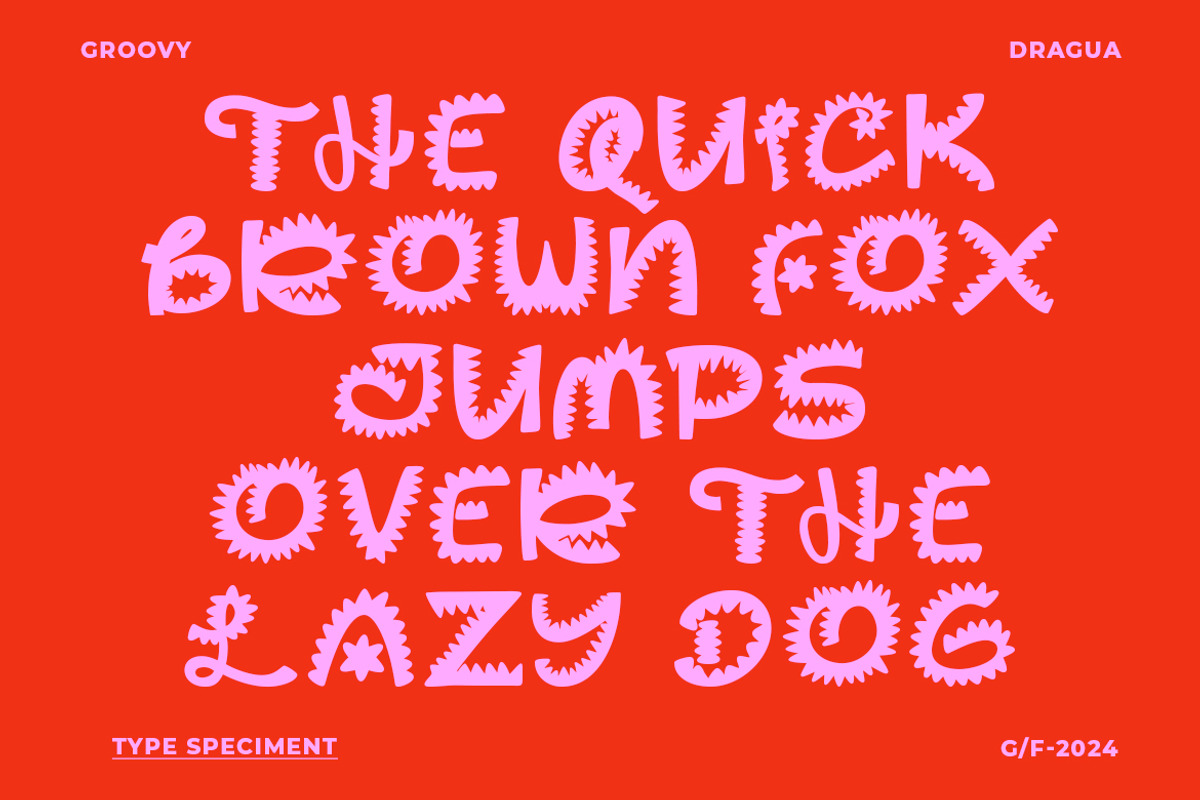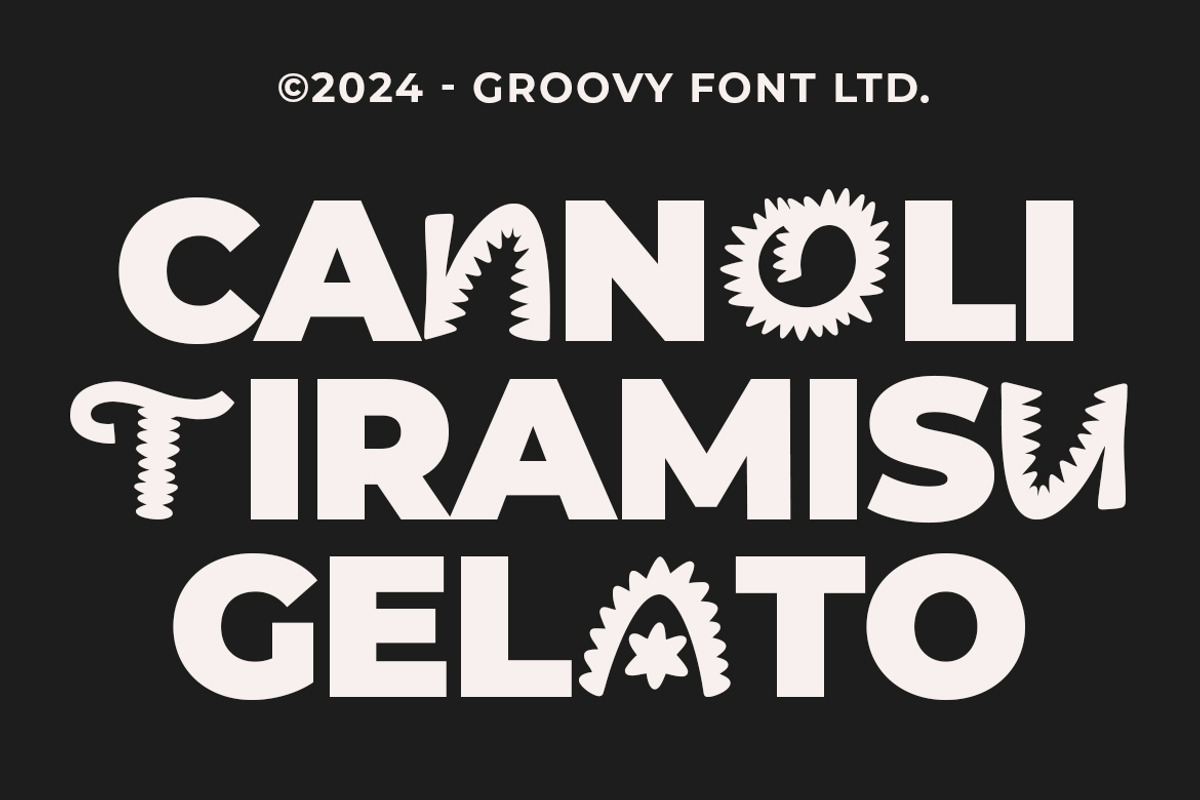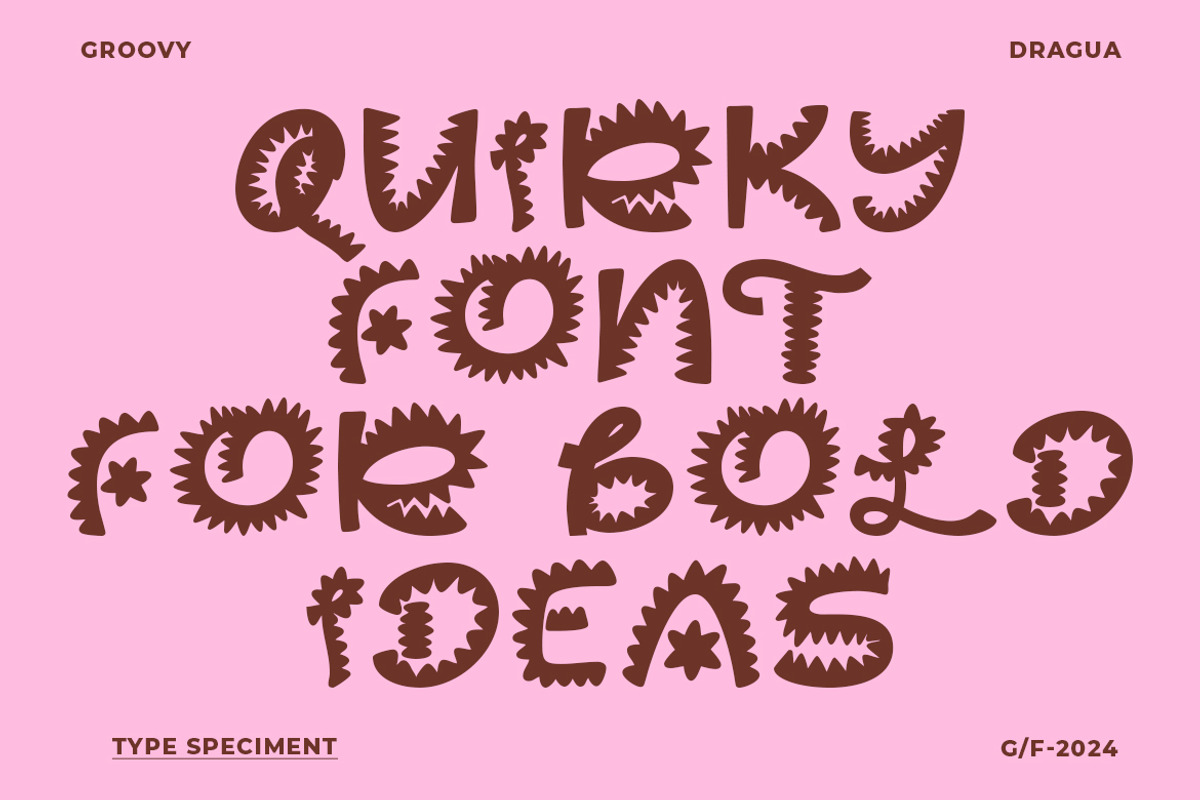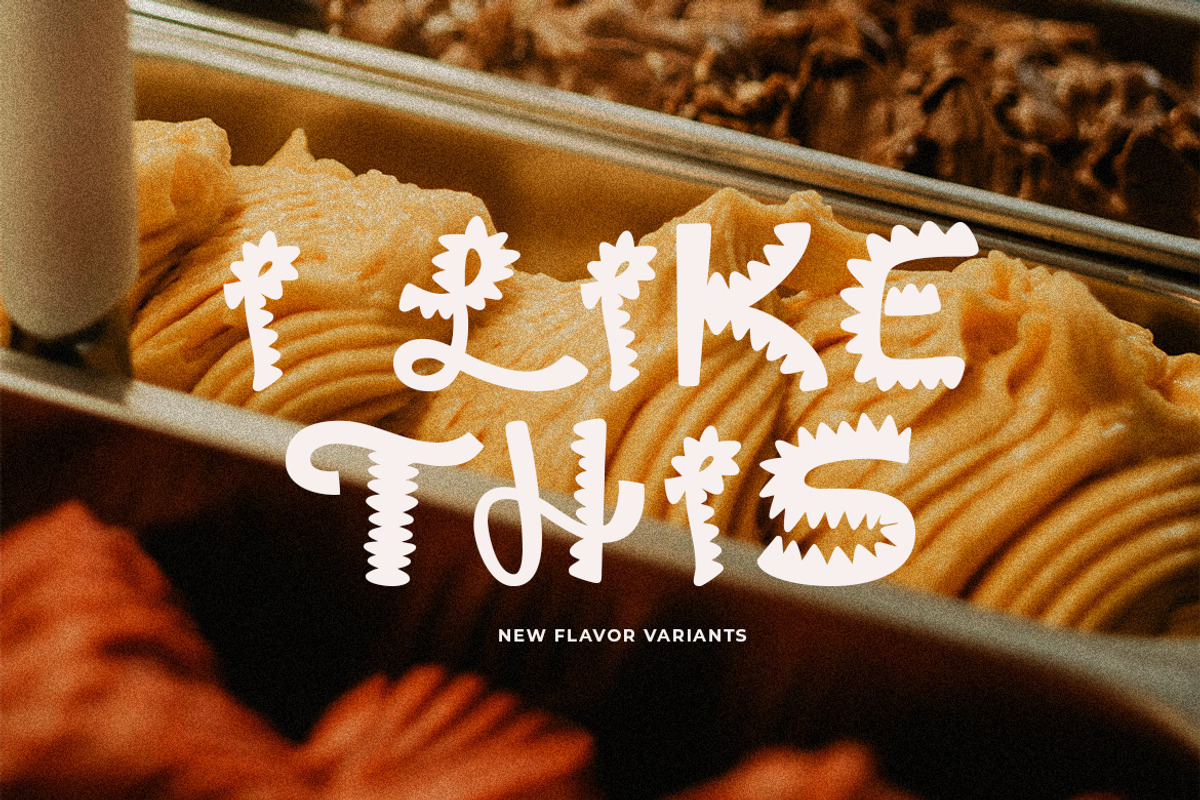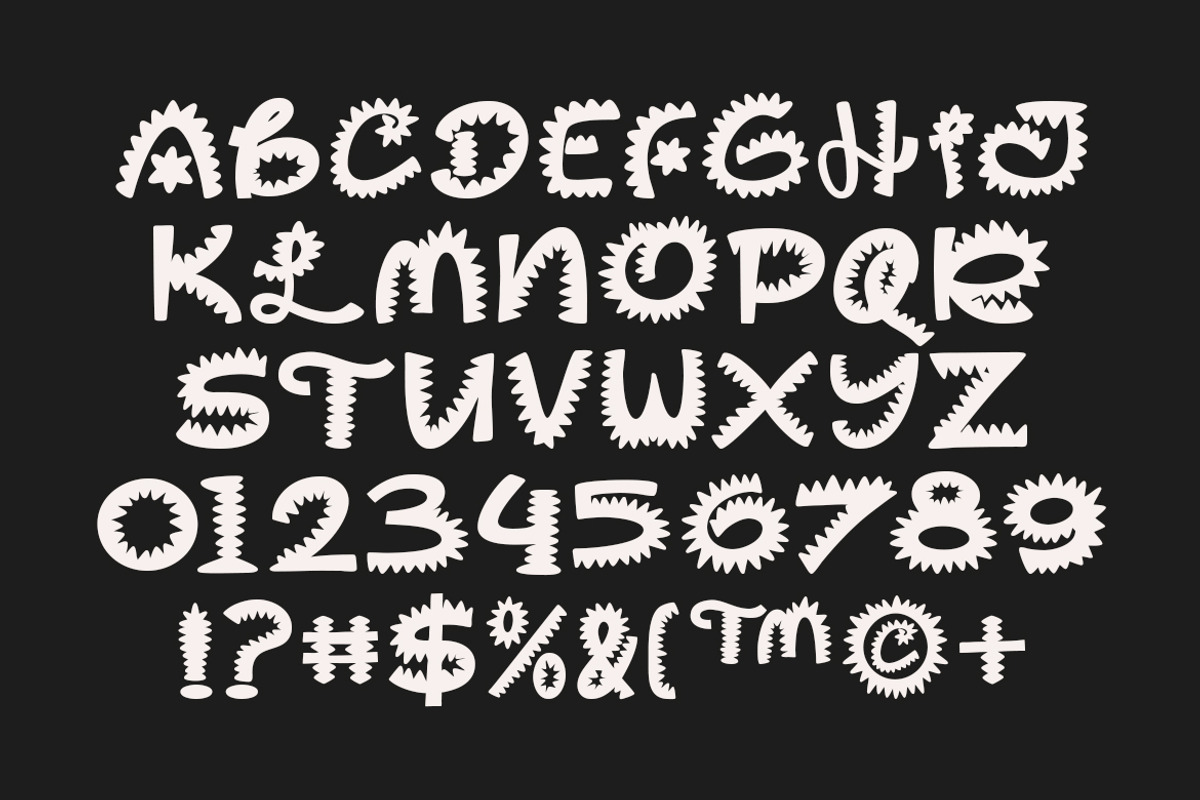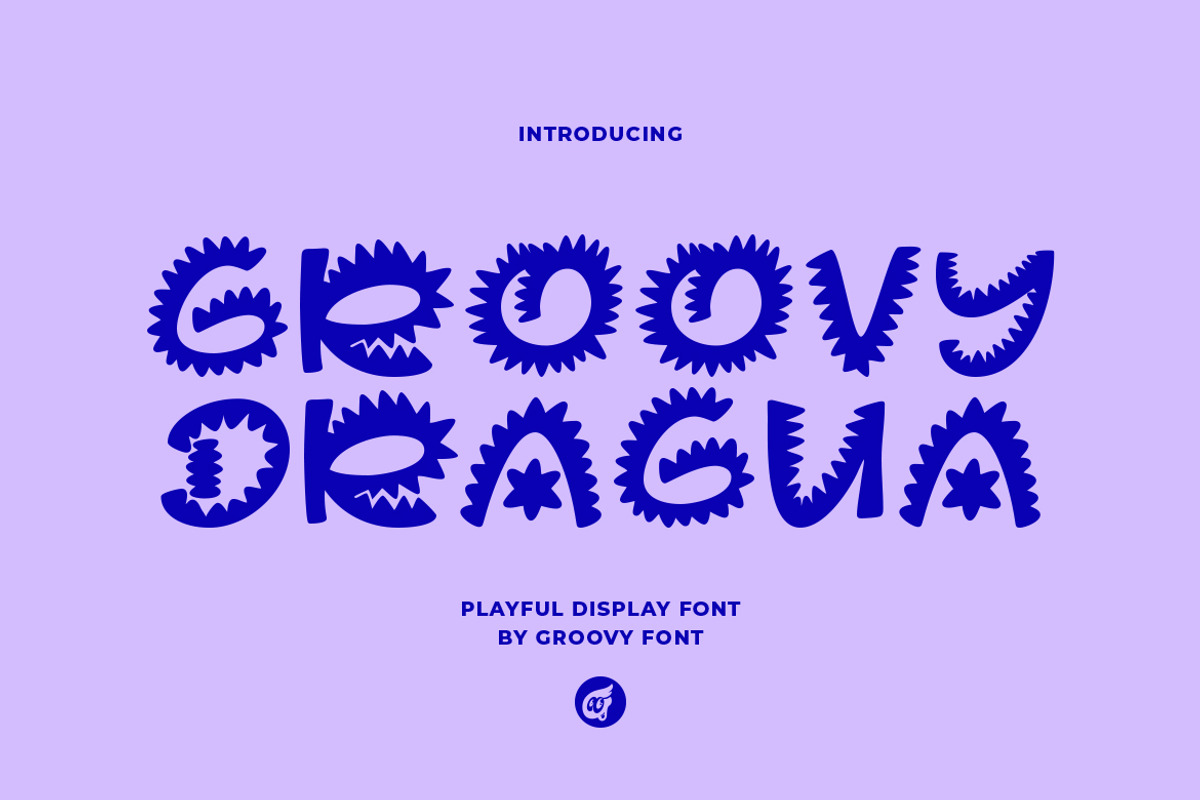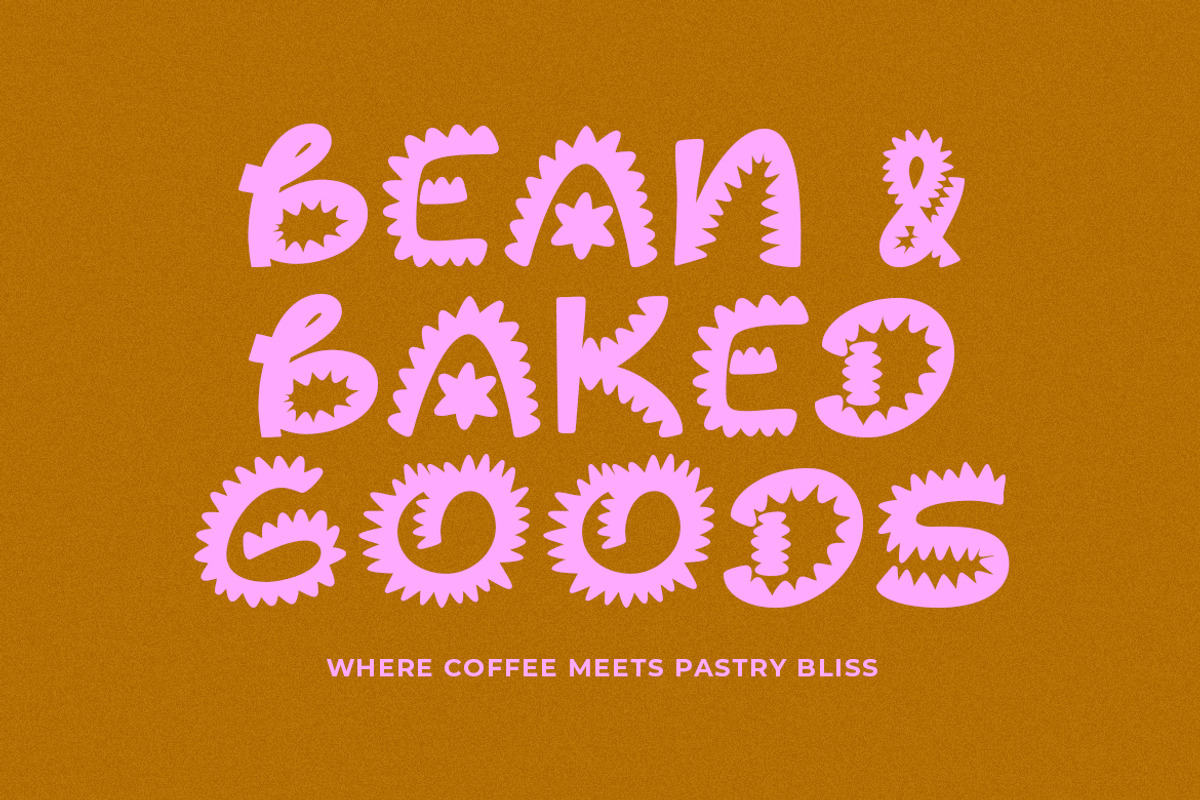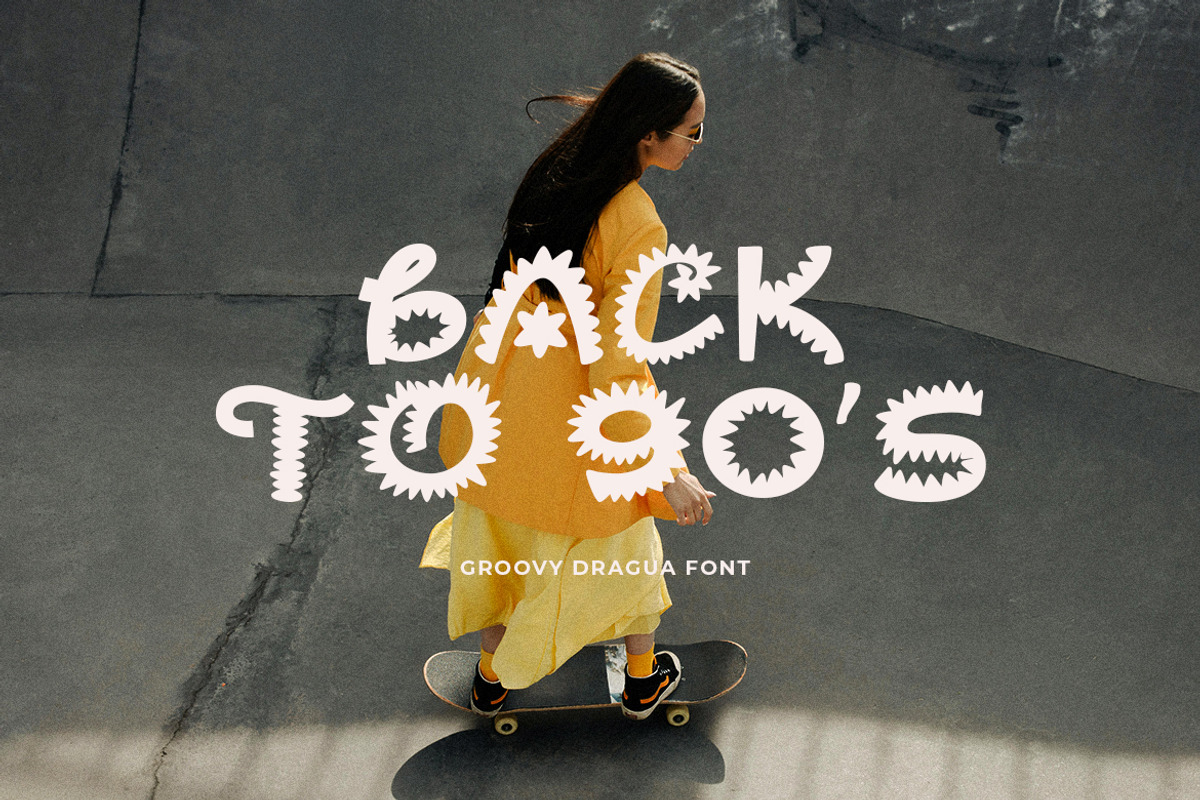
GF Dragua - Playful Display Font
Groovy Dragua font is a playful and handcrafted display font featuring a distinctive serrated, saw-like shape.
This unique design element sets this font apart, adding a touch of creativity and quirkiness to any project. The cheerful and fun vibe of Groovy Dragua makes it an ideal choice for combining with sans-serif fonts or other typefaces to create dynamic and eye-catching designs.
Whether used in posters, packaging, or branding materials, this font injects a sense of energy and character into the overall composition, making it a standout choice for those seeking a playful and unconventional feel.